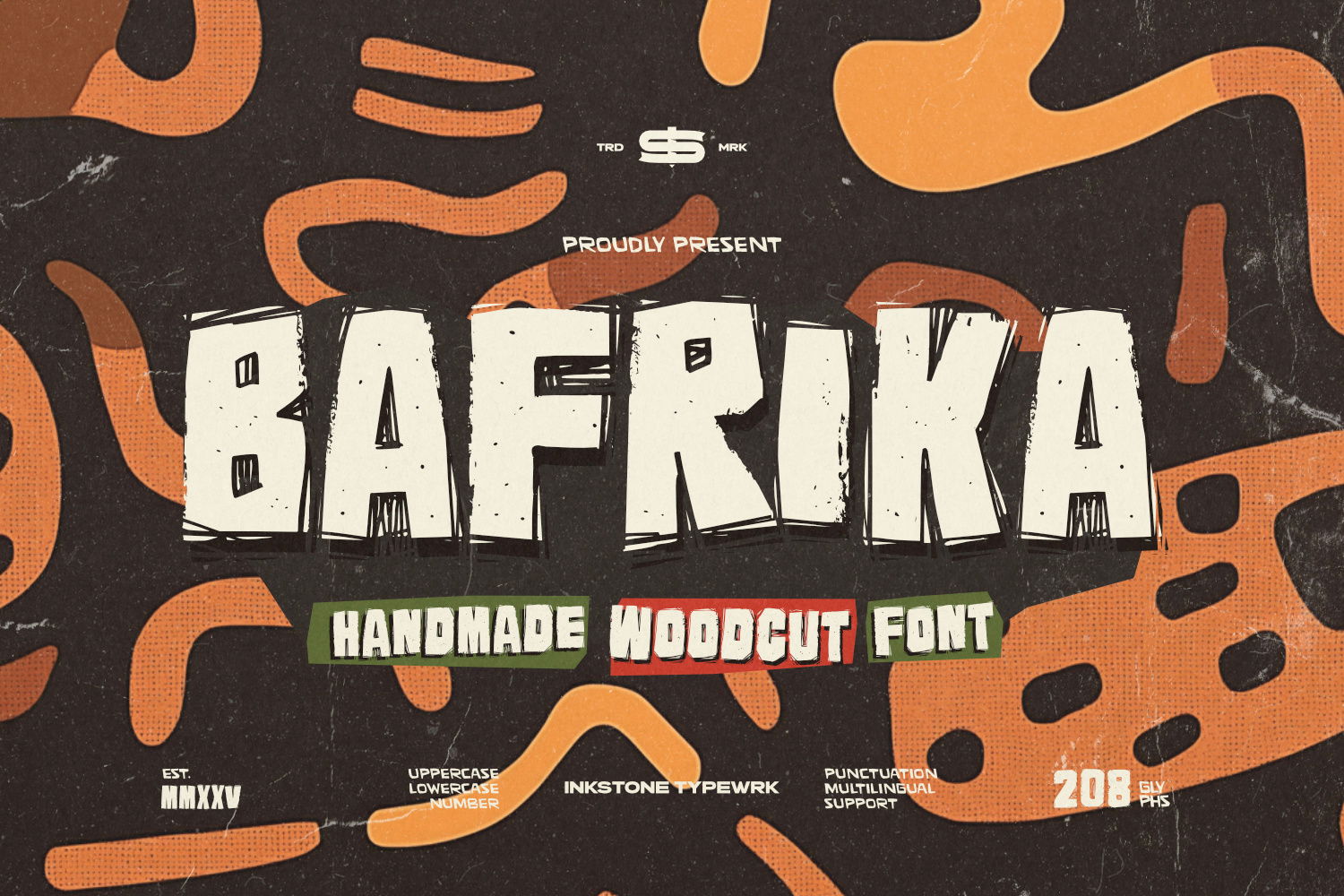
Bafrika - Handmade Woodcut Font
Raw, organic, and rich with African vibes—Bafrika is a handcrafted woodcut font that embodies the energy of tribal artistry and rugged craftsmanship. Inspired by ancient carvings, indigenous patterns, and bold ethnic design, this typeface brings the essence of African culture, nature, and storytelling into every letter.
With its rough, natural textures and bold, Bafrika is perfect for Afrocentric branding, rustic packaging, cultural posters, and handmade product designs. Whether you're crafting an authentic festival logo, an earthy fashion label, or an organic-inspired layout, this font keeps it raw, powerful, and full of heritage.